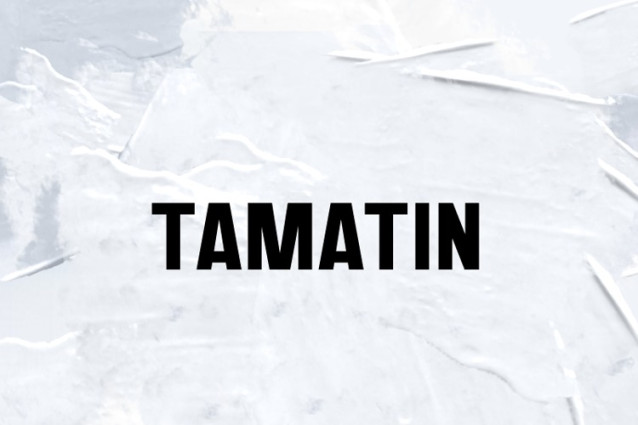
Tamatin Font
Tamatin Font a bold statement with our latest sans-serif font. With its clean lines and modern appeal, this font is sure to turn heads and leave a lasting impression. Perfect for headlines, logos, and any design that demands attention. It is both functional and stylish, making it a versatile choice for a wide range of design projects.